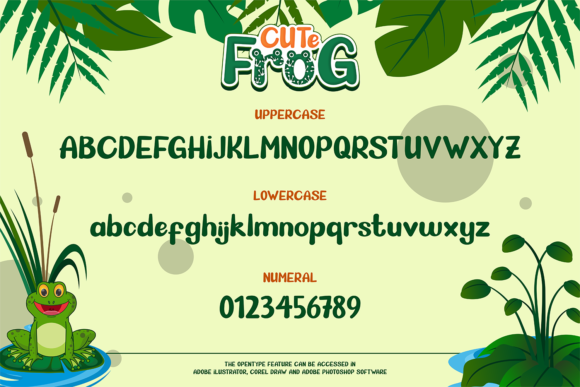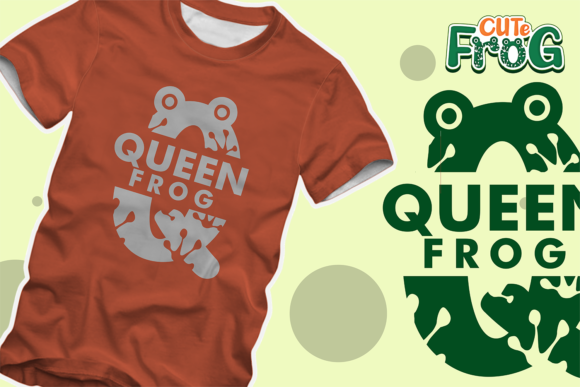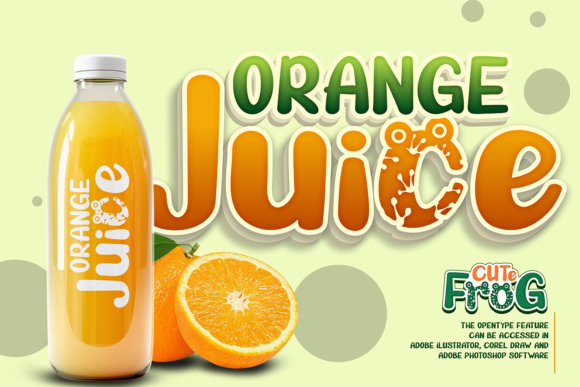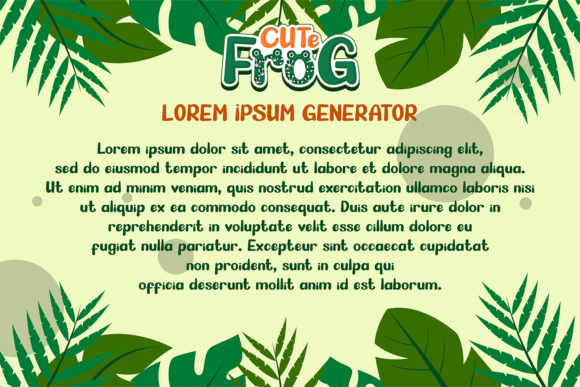
The Magical World of Cute Frog Font
I’ll never forget the moment I stumbled upon the perfect font for my design project. I was working on a whimsical illustration for a client’s branding, and I needed a font that would capture the playful essence of their brand. After hours of scrolling through font libraries, I finally found Cute Frog – a magical display font that instantly elevated my design. Whether you’re a designer, crafter, or creative hobbyist, Cute Frog is about to become your new best friend! ✨
An Honest Review of Cute Frog Font
- ✨ Unique and playful design that’s perfect for creative projects
- ✅ Easy to read and understand, even in smaller sizes
- 🌈 Beautifully crafted with a mix of modern and vintage elements
- 💻 Highly versatile and works well for both digital and print projects
While Cute Frog is an amazing font, there are a few things to keep in mind: 🤔
- ⚠️ Limited availability of Cyrillic and non-English characters
- ⚠️ Not ideal for body text or long paragraphs – best used for headings and titles
The Story Behind Cute Frog Font
Cute Frog was designed by a team of creatives who wanted to bring a touch of magic to the world of typography. Inspired by the whimsy of childhood and the beauty of nature, they crafted a font that’s both playful and elegant. 💫
Q: What type of projects is Cute Frog best suited for?
A: Cute Frog is perfect for creative projects that require a playful touch, such as branding, packaging, and social media graphics. 📱
Q: Is Cute Frog available in different weights or styles?
A: Currently, Cute Frog is available in a single weight, but the design team is working on expanding the font family with additional weights and styles. 🤞